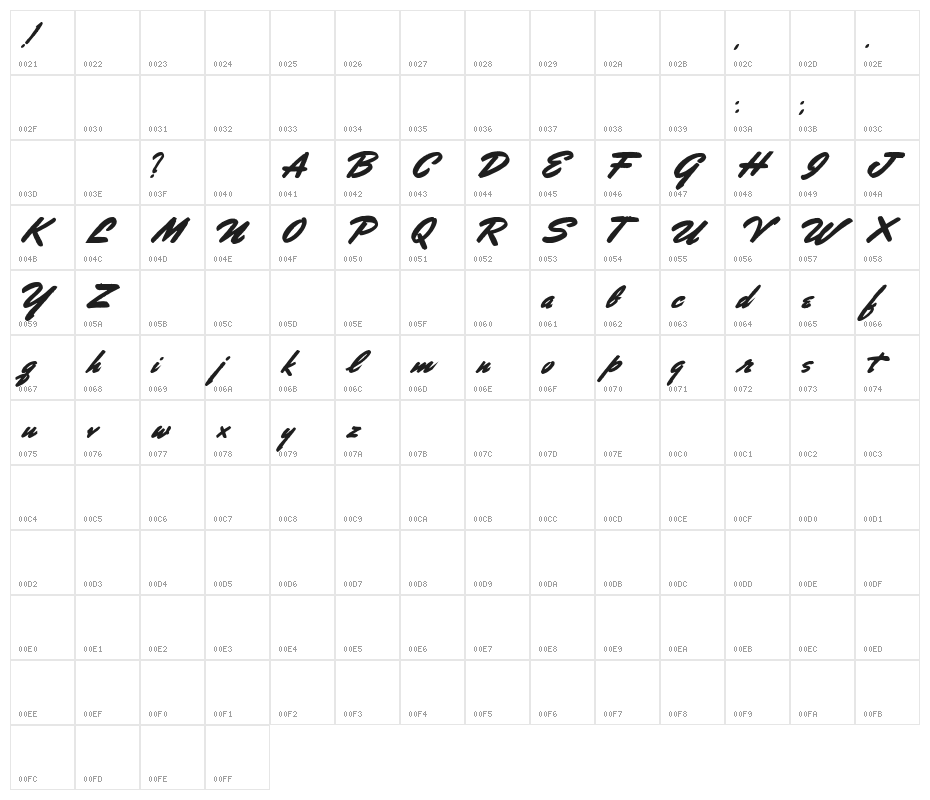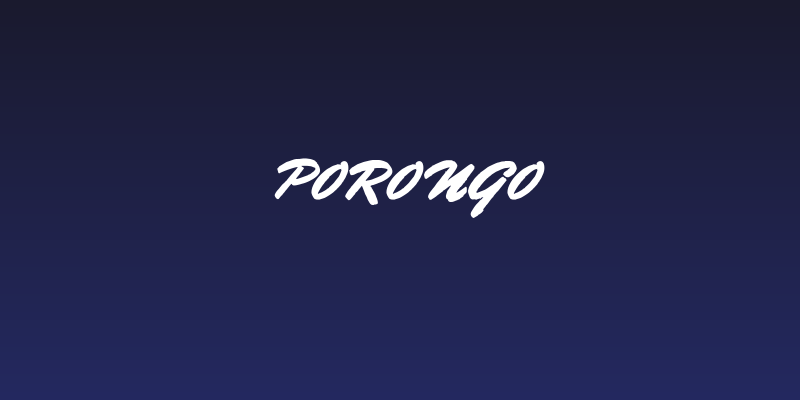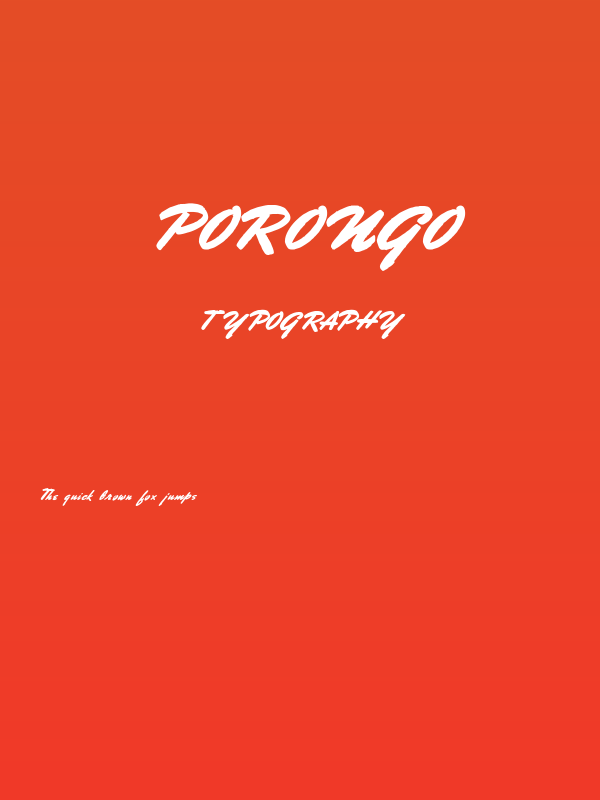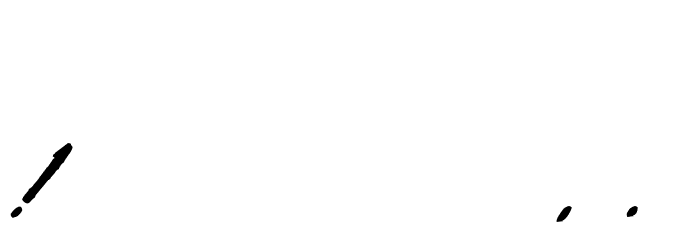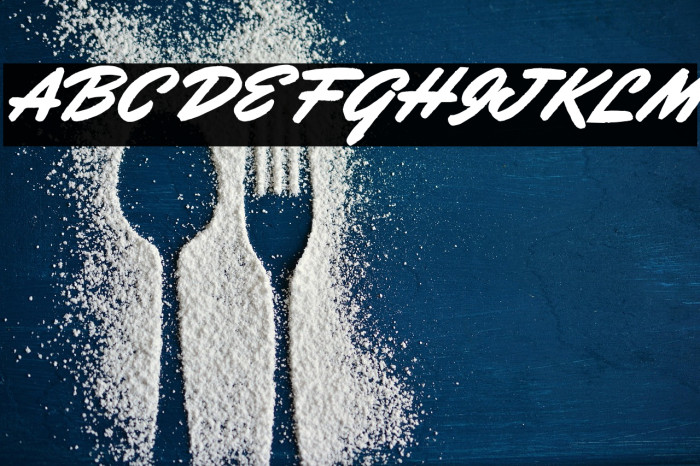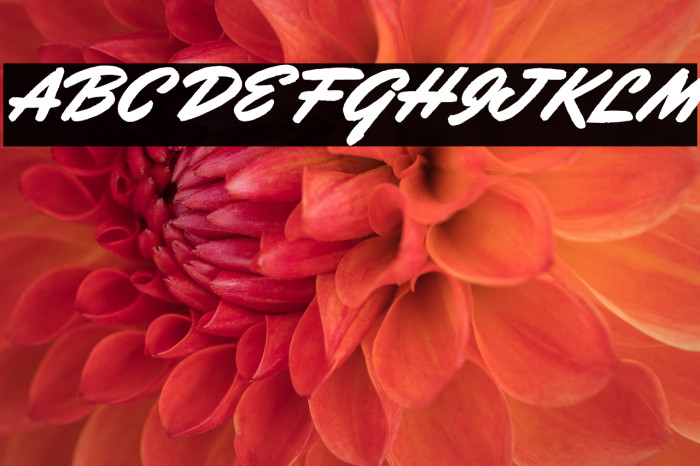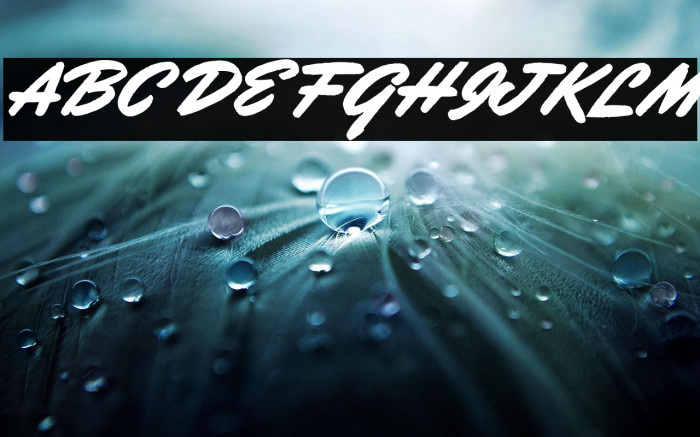
Porongo Font
Porongo Description
This font features a bold, cursive style with a dynamic and energetic flow. The uppercase letters are slightly slanted, giving a sense of movement and fluidity. The lowercase letters maintain a consistent style, with smooth curves and sharp edges that enhance its bold appearance. The font has a strong presence, making it suitable for attention-grabbing designs. The characters are tightly spaced, contributing to its compact and impactful look. The overall design is modern yet retains a classic script feel, making it versatile for various creative projects.